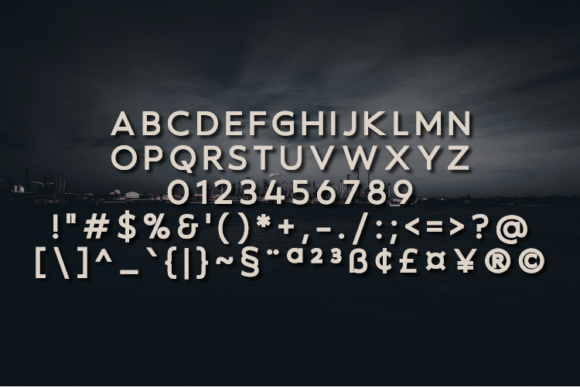
The Timeless Charm of Allea Font: A Designer’s New Best Friend
I’ll never forget the time I was working on a branding project for a trendy new coffee shop. My client was specific about wanting a font that was modern, yet timeless; elegant, yet approachable. I scoured the internet, tried out dozens of fonts, but nothing seemed quite right. That was until I stumbled upon Allea Font. 💡
Allea is a stunning sans serif font that has become my go-to for a wide range of projects. Whether I’m designing social media graphics for Instagram or creating calligraphy scripts for DIY projects, Allea consistently delivers. In this article, I’ll share my experience with Allea, including what I love about it, some minor quirks, and practical tips on how to use it on various platforms.
An Honest Review of Allea Font
What I Love About Allea ✨
- ✅ Timeless design: Allea’s clean lines and classic proportions make it a versatile font that never goes out of style.
- ✅ Elegant and approachable: Allea strikes the perfect balance between sophistication and friendliness, making it perfect for a wide range of projects.
- ✅ Highly legible: Even at small sizes, Allea remains crisp and easy to read, making it ideal for body text or captions.
- ✅ OpenType features: Allea supports a range of OpenType features, including glyphs and stylistic alternates, which can add an extra layer of creativity to your designs.
While Allea is an exceptional font, it’s not without its limitations. ⚠️ One thing to note is that Allea may not be the best choice for very large-scale projects, such as billboards or signage, due to its relatively slender design.
Additionally, some users may find that Allea’s elegance can make it appear somewhat formal or serious. However, this can often be mitigated by experimenting with different font sizes, colors, or pairings.
The Story Behind Allea Font
While the exact origins of Allea Font are unclear, it’s said to have been inspired by the classic sans serif fonts of the 20th century. 💬 The designer, who wishes to remain anonymous, aimed to create a font that was both timeless and versatile – a font that could be used in a wide range of creative projects.
Q: What type of projects is Allea Font best suited for?
Allea Font is a versatile font that can be used in a wide range of projects, from branding and advertising to social media graphics and DIY crafts.
Q: Is Allea Font suitable for large-scale projects?
While Allea Font is an exceptional font, it may not be the best choice for very large-scale projects, such as billboards or signage, due to its relatively slender design.